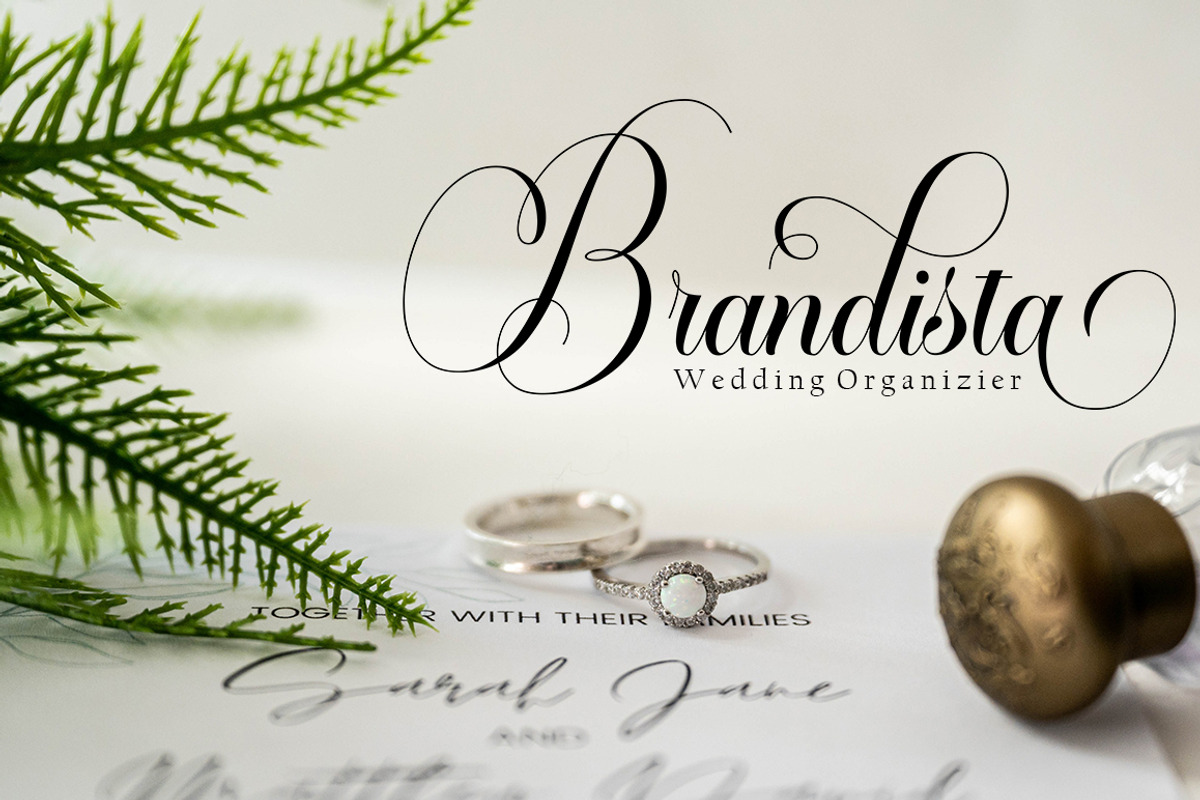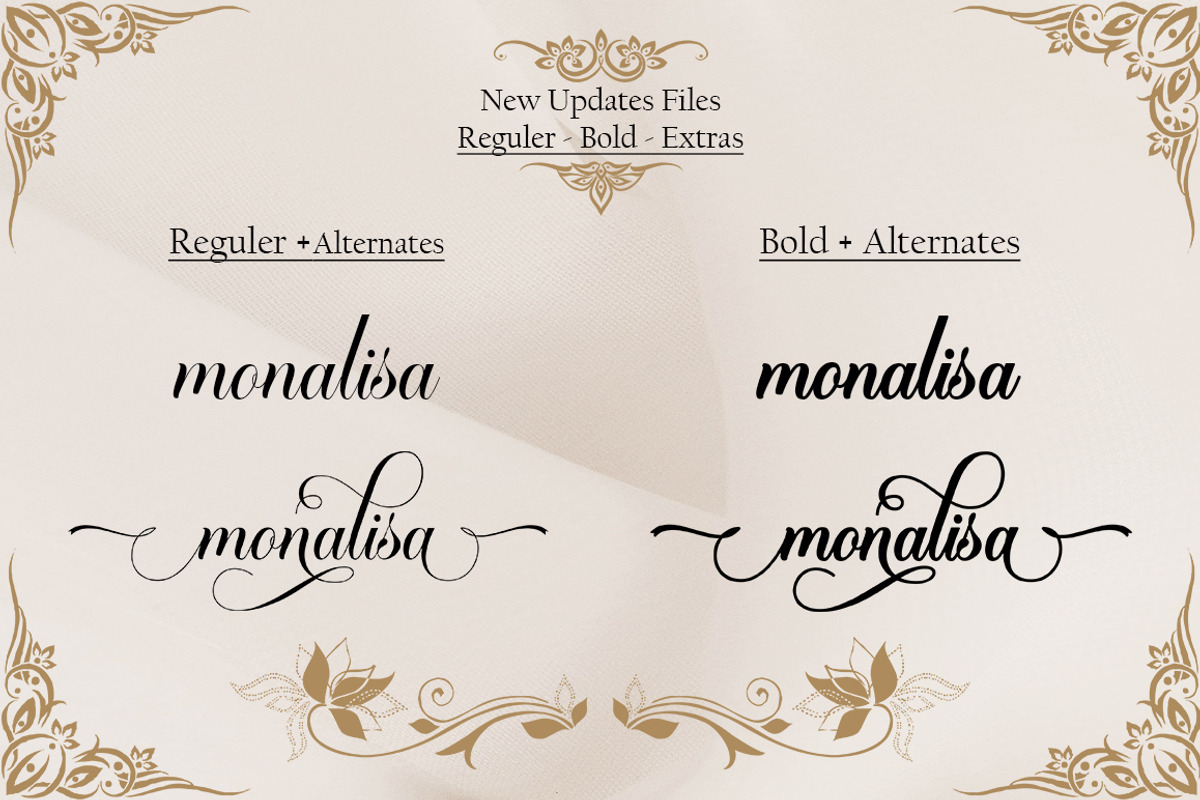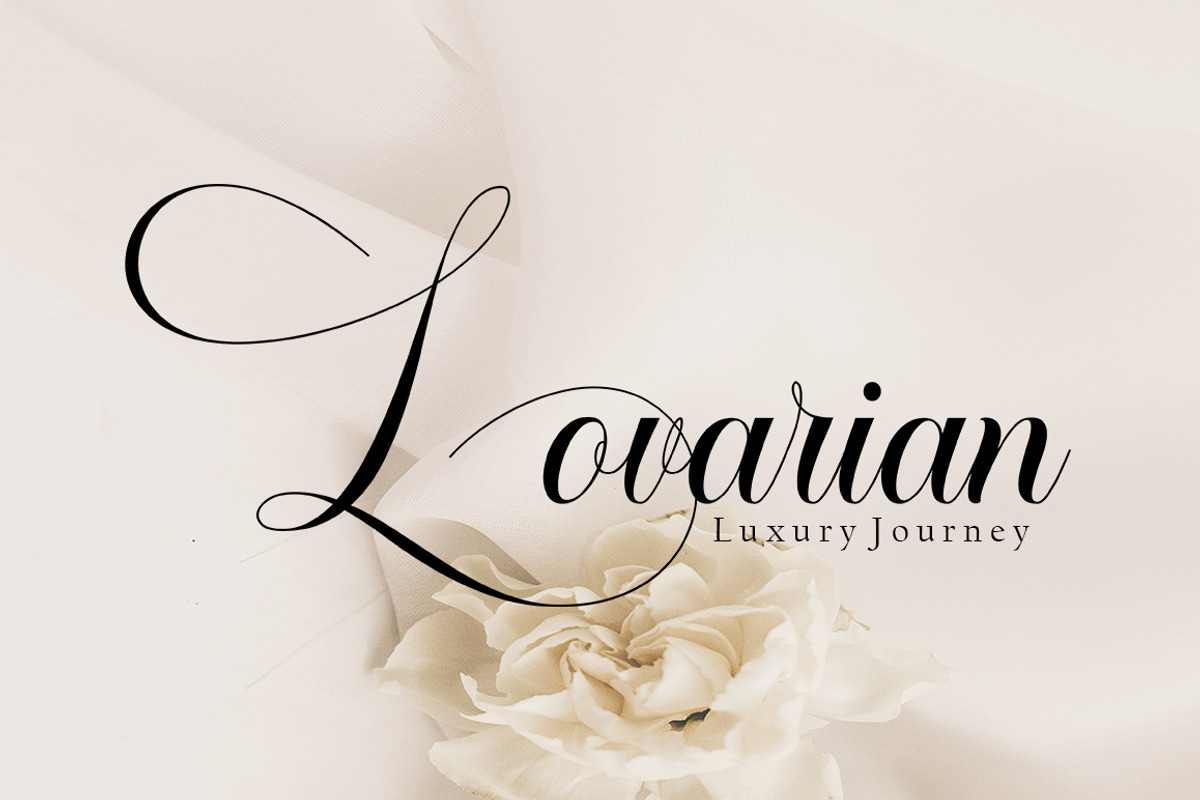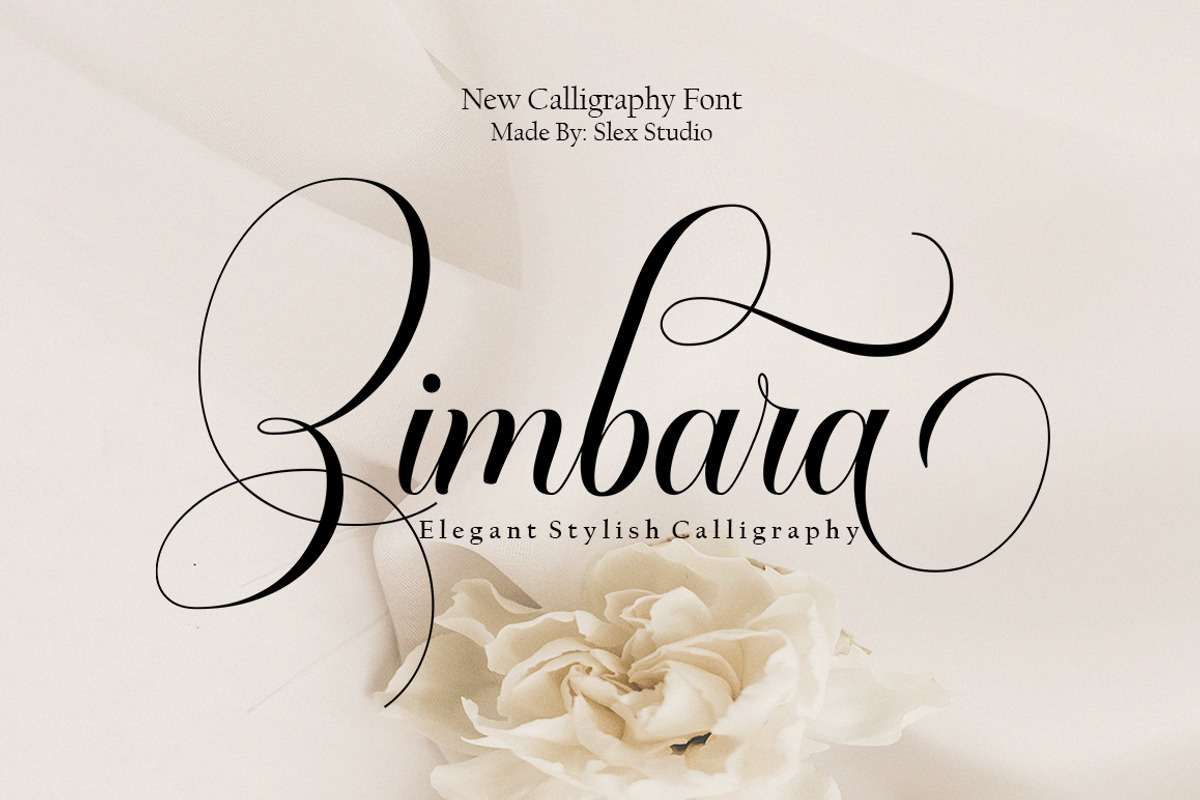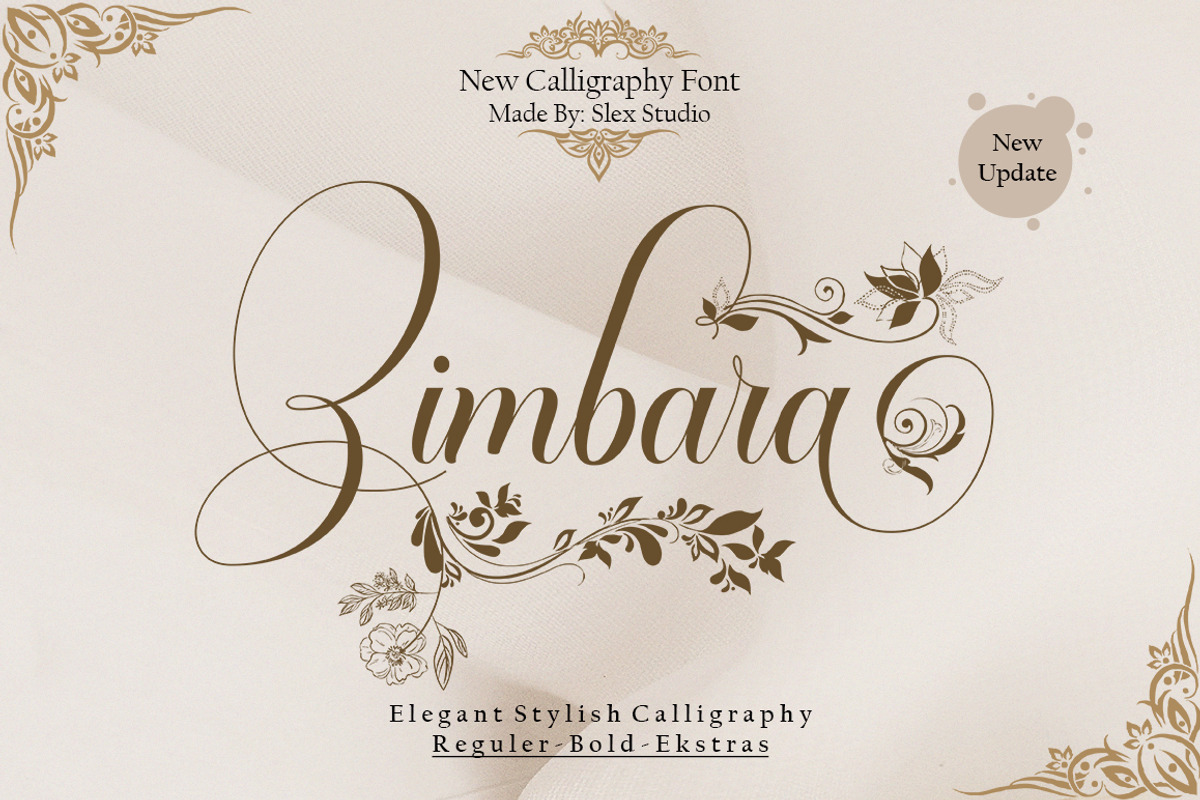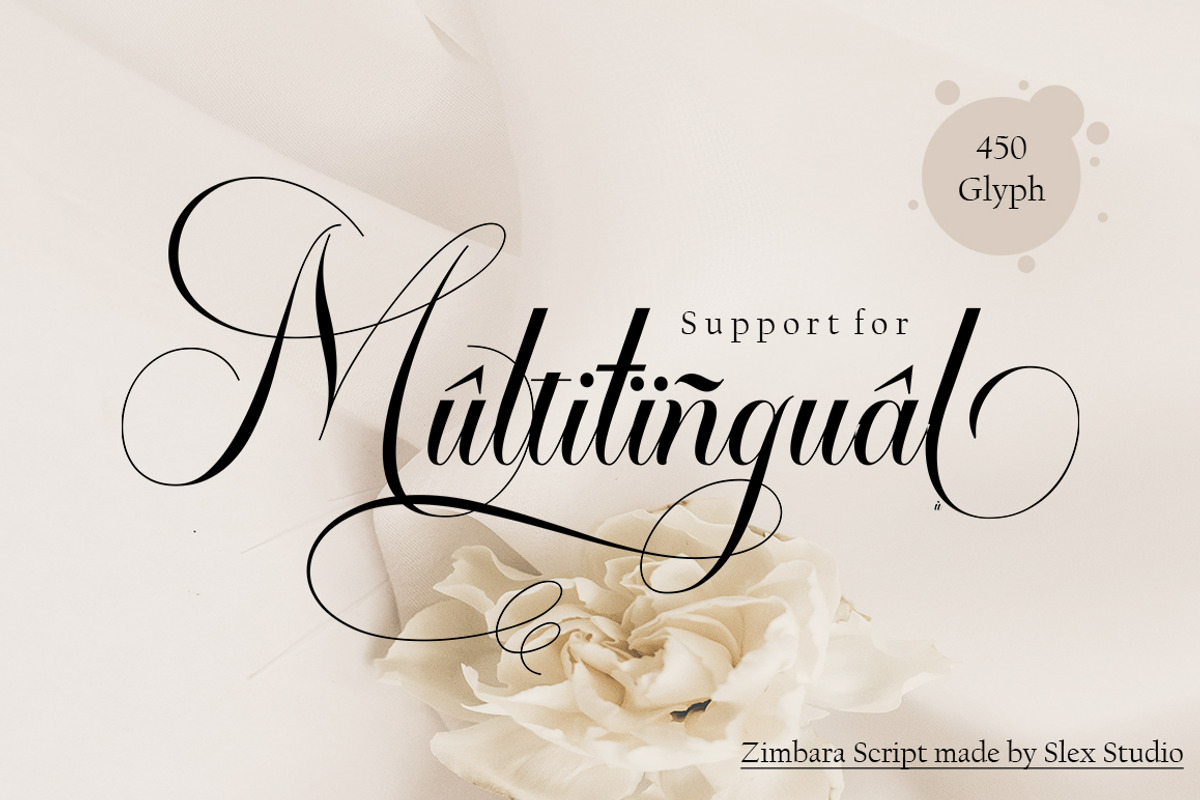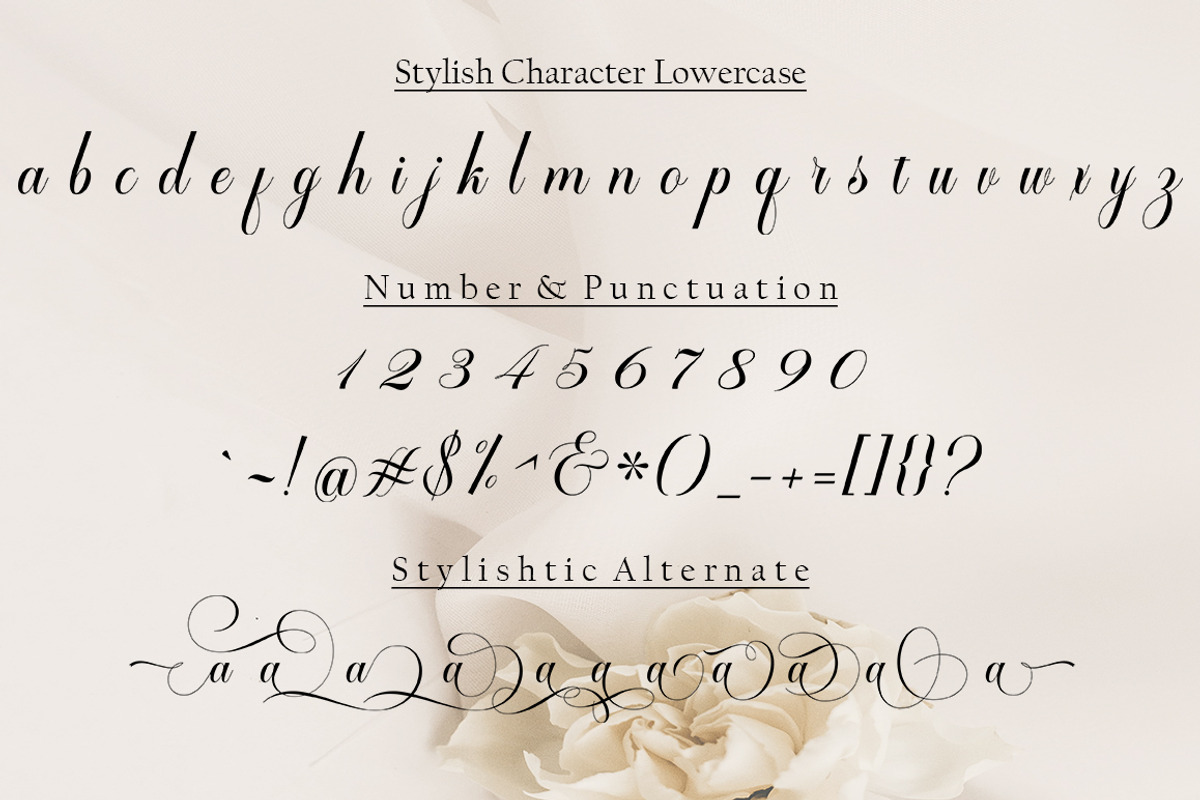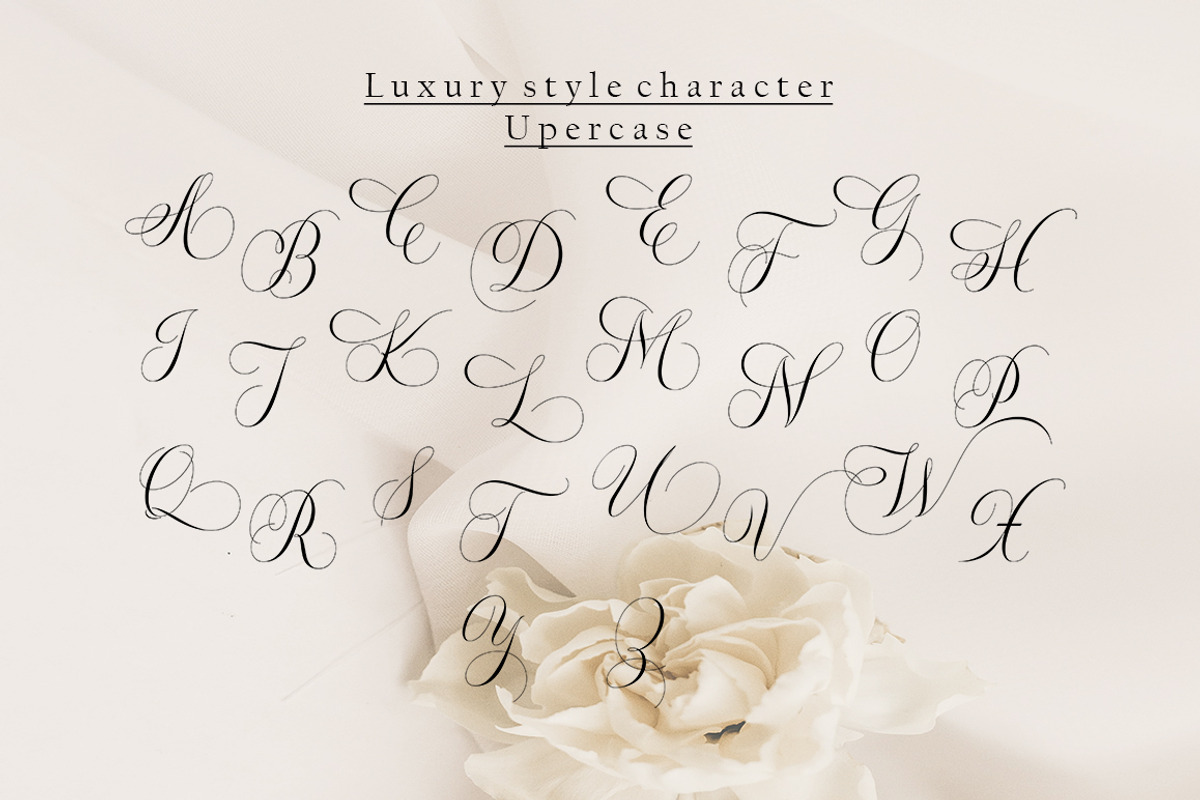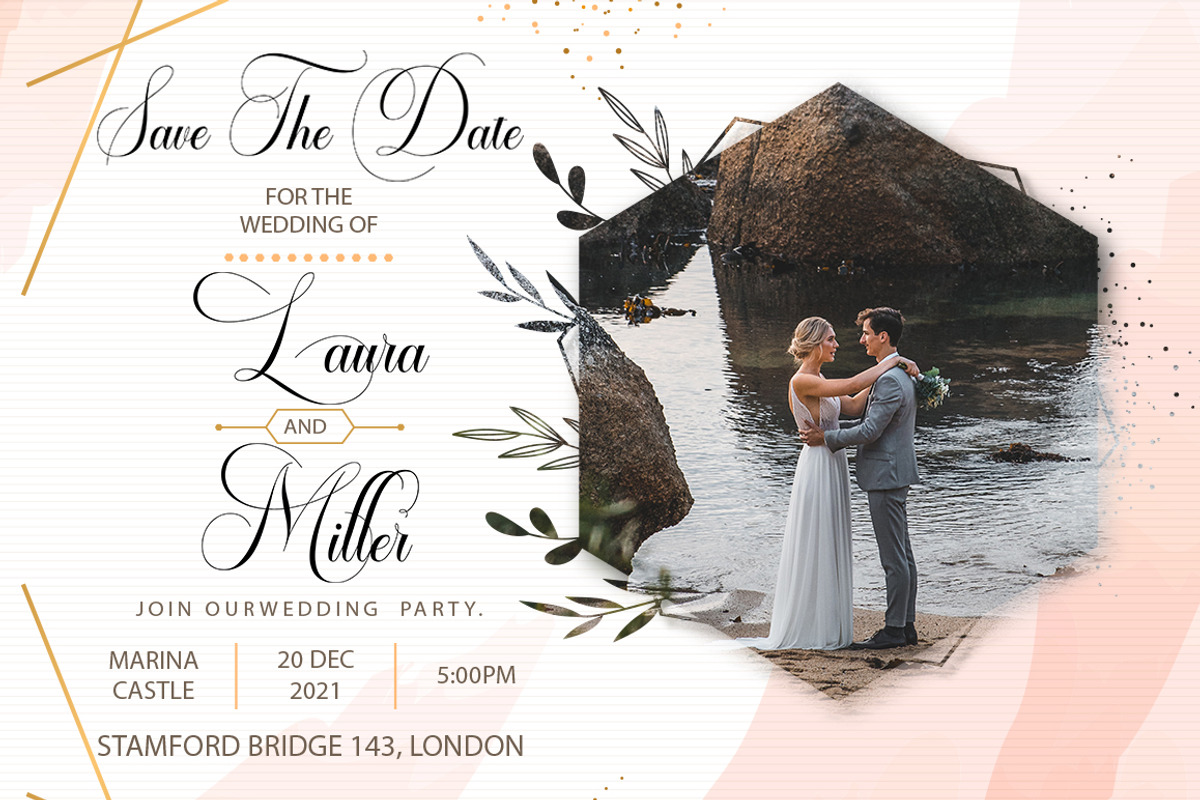
Zimbara
New Updates from Zimbara script!!!
Zimbara script font Now plus Bold font and beautiful Extras with a classic style and a touch of elegance, inspired by the handwriting of ancient manuscripts. Carefully designed to work together in harmony that makes it very suitable for wedding media, book covers, greeting cards, logos, branding, business cards and certificates, even for any design work that requires a classic, formal or luxurious.
multilingual support and ligatures